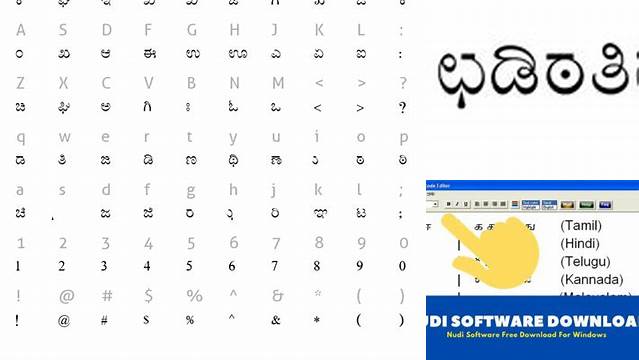
Kannada Fonts: Free Download For Windows 7
Hey guys! Are you looking to jazz up your Windows 7 with some cool Kannada fonts? You've come to the right place! In this article, we'll dive deep into the world of Kannada fonts, where to download them for free, and how to get them working smoothly on your Windows 7 system. We'll cover everything from the basics to some nifty tips and tricks. So, buckle up and let’s get started!
1. Understanding the Importance of Kannada Fonts
Let's kick things off by understanding why Kannada fonts are so important. For those of you who use Kannada in your daily communication, having the right fonts is crucial. Imagine trying to read a beautifully written Kannada document but all you see are gibberish characters – frustrating, right? That’s why having the correct fonts installed is essential for a smooth and enjoyable reading and writing experience. Fonts aren't just about aesthetics; they're about ensuring clarity and accessibility. Proper Kannada fonts make your documents, websites, and presentations look professional and readable. They help you connect with your audience effectively and ensure your message is conveyed accurately. So, whether you're a student, a professional, or just someone who loves the language, having a good collection of Kannada fonts is a must.
2. Why Choose Kannada Nudi Fonts?
So, why Kannada Nudi fonts specifically? Well, Nudi is a widely used and respected font encoding standard for the Kannada script. It's known for its clear, legible characters and its compatibility across different platforms and applications. When you choose Nudi fonts, you're opting for a standard that is well-supported and recognized within the Kannada-speaking community. This means you're less likely to run into compatibility issues or display problems when sharing documents or viewing content online. Nudi fonts are designed to render the complex characters of the Kannada script accurately and beautifully, making them an excellent choice for everything from formal documents to creative projects. Plus, many free and high-quality Nudi fonts are available, making it easy to find the perfect one for your needs.
- Locate the Font Files: You'll find files with extensions like .ttf or .otf.
- Install the Fonts: Right-click on each font file and select "Install."
- Alternative Installation (Optional): You can also copy the font files and paste them into the Fonts folder (C:\Windows\Fonts).
- Restart Applications (if needed): If you don't see the fonts in your applications, restart them. Sometimes, a computer restart might be necessary.
That's it! You've successfully installed Kannada fonts on your Windows 7 system.
7. Troubleshooting Font Installation Issues
Sometimes, even with the best instructions, things can go a little wonky. If you're having trouble installing Kannada fonts, don't worry – we've got you covered. One common issue is that the font doesn't appear in your application's font list after installation. This usually happens because the application hasn't refreshed its font list. Try restarting the application first. If that doesn't work, a full computer restart might be necessary. Another issue could be corrupted font files. If you suspect this, try downloading the font again from a different source. Also, ensure that the fonts are compatible with Windows 7. If you're still facing problems, check your system's language settings to make sure Kannada is enabled. These simple steps can often resolve most font installation issues.
8. Common Problems and Solutions for Kannada Fonts on Windows 7
Let's dive into some common issues folks encounter with Kannada fonts on Windows 7 and how to fix them. One frequent problem is garbled or incorrect character display. This can happen if you're using an application that doesn't fully support the Nudi encoding standard. To resolve this, try using a different application or updating the one you're using to the latest version. Another issue is that some fonts might not render properly in certain applications. This can be due to font compatibility issues. Try using a different Kannada font or contacting the application's support team for assistance. Sometimes, the issue is simply that the wrong input method is selected. Make sure you have the Kannada input method enabled in your system settings. By troubleshooting these common problems, you can ensure a smooth and enjoyable experience with Kannada fonts on your Windows 7 computer.
9. Verifying Font Installation
So, you've installed your Kannada fonts, but how do you make sure they're actually working? A simple way to verify the installation is to open a text editor like Notepad or Microsoft Word and check the font list. You should see the newly installed Kannada fonts listed there. If you see them, that's a great sign! Try typing some Kannada text to see if the characters render correctly. If the characters look clear and legible, your font installation was successful. Another method is to open an application that uses fonts extensively, like Adobe Photoshop or GIMP, and check the font list there. If the fonts appear in multiple applications, you can be confident that they're properly installed and ready to use.
10. Using Kannada Fonts in Microsoft Word
Using Kannada fonts in Microsoft Word is super straightforward. Once you've installed the fonts, simply open Word and start typing. To switch to Kannada, you'll need to enable the Kannada input method in your system settings. In Windows 7, you can do this by going to Control Panel > Region and Language > Keyboards and Languages > Change keyboards. Add the Kannada language and input method. Now, in Word, you can select the Kannada input method from the language bar and choose your desired Kannada font from the font dropdown menu. Start typing, and your text will appear in beautiful Kannada script. You can adjust the font size, style, and other formatting options just like you would with any other font. This makes it easy to create documents, reports, and other content in Kannada.
11. Using Kannada Fonts in Other Applications
The good news is that Kannada fonts work pretty much the same way in most applications. Whether you're using Adobe Photoshop, GIMP, or a web browser, the process is similar. First, make sure you've installed the Kannada fonts on your system. Then, in the application, select the text tool or the appropriate option for changing fonts. You should see the Kannada fonts in the font list. Choose the font you want to use, and make sure your input method is set to Kannada. Now, you can type away in Kannada! Keep in mind that some applications might have specific settings or requirements for handling different languages and scripts, so it's always a good idea to consult the application's documentation or help resources if you encounter any issues.
12. Creating Documents in Kannada with Nudi Fonts
Creating documents in Kannada using Nudi fonts is a breeze once you've got everything set up. Nudi fonts are particularly well-suited for this task because they are widely recognized and compatible with many applications. Start by opening your favorite word processor, like Microsoft Word or LibreOffice Writer. Select your Nudi font from the font menu and ensure your input method is set to Kannada. Now, you can type your document in Kannada, taking advantage of Nudi's clear and legible characters. Remember to save your document in a format that supports Unicode, such as .docx or .odt, to ensure that the Kannada text is displayed correctly on other systems. Creating documents in Kannada with Nudi fonts allows you to communicate effectively and professionally in the language you love.
13. Designing Graphics with Kannada Fonts
Want to add some Kannada flair to your graphic designs? Using Kannada fonts in graphic design software like Adobe Photoshop or GIMP can give your creations a unique and authentic touch. Start by opening your design software and creating a new project. Select the text tool and choose your desired Kannada font from the font list. Make sure your input method is set to Kannada so you can type in the language. Experiment with different font styles, sizes, and colors to achieve the look you want. Kannada fonts can be used for everything from logos and posters to social media graphics and website banners. By incorporating Kannada script into your designs, you can create visually appealing and culturally relevant content.
14. Using Kannada Fonts on Websites
If you're building a website with Kannada content, using the right Kannada fonts is crucial for readability and visual appeal. Web fonts work a bit differently than desktop fonts, so you'll need to use a technique called web font embedding. This involves linking to the font files from your website's CSS. Google Fonts is a great resource for free and open-source web fonts, and they offer several Kannada fonts that you can easily embed on your site. Simply choose the font you want, copy the provided code snippets, and paste them into your website's HTML and CSS files. This will ensure that visitors to your site see the Kannada text in the correct font, regardless of whether they have the font installed on their own computers. Using Kannada fonts on your website helps create a more engaging and user-friendly experience for your Kannada-speaking audience.
15. Kannada Fonts for Social Media
Want to spice up your social media posts with some Kannada text? Using Kannada fonts on platforms like Facebook, Twitter, and Instagram can help you connect with your audience in a more personal and engaging way. The process is similar to using fonts in other applications: make sure you have the Kannada fonts installed on your device, and then select the font when creating your post. However, social media platforms often have their own font rendering engines, so the appearance of the text might vary slightly depending on the platform and device. Experiment with different fonts and styles to find what looks best for your content. Adding Kannada text to your social media posts can help you reach a wider audience and express yourself more authentically.
16. Exploring Different Styles of Kannada Fonts
The world of Kannada fonts is vast and varied, with a font style to suit every taste and project. From classic and traditional styles to modern and contemporary designs, there's a Kannada font out there for you. Some fonts are bold and assertive, perfect for headlines and titles, while others are delicate and elegant, ideal for body text and captions. Experiment with different font styles to see how they impact the overall look and feel of your content. Consider the context in which you'll be using the font. For formal documents, a clean and legible font is essential. For creative projects, you might want to choose a more expressive and decorative font. Exploring different styles of Kannada fonts can help you find the perfect typeface to communicate your message effectively.
17. Popular Kannada Fonts to Download
Let's talk about some popular Kannada fonts that you might want to download and try out. One of the most well-known is Tunga, a classic and widely used font that is highly legible and versatile. Another popular choice is Nudi, which, as we discussed earlier, is a standard encoding for Kannada script. Several variations of Nudi fonts are available, each with its unique characteristics. Other notable Kannada fonts include Kedage, Mallige, and Latha. Each of these fonts has its own distinct personality and is suitable for different types of projects. Explore these popular options to get a sense of the range of Kannada fonts available and find the ones that resonate with you.
18. Understanding Kannada Script and Font Encoding
To truly appreciate and use Kannada fonts effectively, it's helpful to understand the basics of the Kannada script and font encoding. The Kannada script is an abugida, meaning that each consonant character has an inherent vowel sound, which can be modified by adding diacritics. This complexity means that Kannada fonts need to be carefully designed to render the characters accurately. Font encoding refers to the way characters are mapped to specific code points in a digital font file. Nudi is a popular encoding standard for Kannada, but other encodings exist. Understanding these concepts can help you troubleshoot font-related issues and ensure that your Kannada text is displayed correctly across different platforms and applications.
19. The Future of Kannada Fonts
The world of Kannada fonts is constantly evolving, with new fonts and technologies emerging all the time. As digital communication and content creation continue to grow, the demand for high-quality Kannada fonts will only increase. We can expect to see more innovative and expressive Kannada fonts in the future, as well as improvements in font rendering and compatibility. Web font technology is making it easier than ever to use Kannada fonts on websites, and this trend is likely to continue. The future of Kannada fonts is bright, with exciting possibilities for enhancing the visual representation of the language in the digital realm.
20. Tips for Choosing the Right Kannada Font
Choosing the right Kannada font for your project can make a big difference in its overall impact. Here are some tips to help you make the best choice. First, consider the purpose of your text. Is it for a formal document, a creative design, or a website? The context will help you narrow down your options. Legibility is crucial, especially for body text. Choose a font that is easy to read at the intended size. Think about the overall tone and style you want to convey. A bold font might be suitable for a headline, while a more delicate font might be better for a caption. Don't be afraid to experiment with different fonts and see what works best for you. Ultimately, the right Kannada font is the one that best communicates your message and enhances your design.
21. Maintaining Your Kannada Font Collection
Once you've built up a collection of Kannada fonts, it's essential to maintain them properly. This will ensure that your fonts are always available when you need them and that they continue to work correctly. Keep your font files organized in a dedicated folder on your computer. This will make it easier to find and manage them. Regularly back up your font collection to an external drive or cloud storage service. This will protect you from data loss in case of a computer malfunction. If you encounter any font-related issues, try restarting your computer or reinstalling the font. By taking these simple steps, you can keep your Kannada font collection in tip-top shape.
22. Creating Your Own Kannada Fonts
Feeling creative? Why not try designing your own Kannada fonts? Font design can be a challenging but rewarding endeavor. It involves a deep understanding of typography, the Kannada script, and the technical aspects of font creation. Several software programs are available for font design, ranging from free and open-source options to professional-grade tools. Start by sketching out your font ideas on paper, then use the software to digitize your designs. Pay close attention to the spacing and kerning of the characters to ensure readability. Creating your own Kannada fonts allows you to express your unique style and contribute to the rich tradition of Kannada typography.
23. Kannada Font Resources Online
The internet is a treasure trove of Kannada font resources. Whether you're looking for fonts to download, tutorials on font installation, or inspiration for font design, you'll find a wealth of information online. Font repositories and archives offer a wide selection of free and commercial Kannada fonts. Online forums and communities dedicated to Kannada language and culture are great places to ask questions and share your experiences. Websites and blogs focused on typography and graphic design often feature articles and tutorials on using Kannada fonts effectively. Take advantage of these online resources to expand your knowledge and skills in the world of Kannada typography.
24. The History of Kannada Script and Fonts
To truly appreciate Kannada fonts, it's fascinating to delve into the history of the Kannada script itself. The Kannada script evolved from the Brahmi script, an ancient writing system used in India. Over centuries, the script gradually developed its unique characteristics, becoming the beautiful and intricate script we know today. Early Kannada inscriptions date back to the 5th century CE. The advent of printing in the 19th century led to the development of Kannada typefaces. Today, digital Kannada fonts allow us to preserve and celebrate this rich linguistic heritage. Understanding the history of the Kannada script and fonts adds depth and appreciation to their use.
25. Kannada Fonts and Unicode
Unicode plays a crucial role in the digital representation of Kannada fonts. Unicode is a universal character encoding standard that assigns a unique code point to every character in every language. This ensures that text can be displayed correctly across different platforms and applications, regardless of the user's system settings. Kannada characters are included in the Unicode standard, which means that well-designed Kannada fonts can be used on any Unicode-compliant system. Using Unicode fonts is essential for ensuring that your Kannada text is displayed accurately and consistently. When saving documents or web pages with Kannada text, be sure to use a Unicode encoding, such as UTF-8.
26. Kannada Fonts for Print vs. Screen
When choosing Kannada fonts, it's important to consider whether they will be used for print or screen. Fonts designed for print often have subtle details and refinements that might not be visible on a screen. Fonts designed for screen use, on the other hand, are often optimized for pixel rendering and readability on digital displays. Some fonts are specifically designed for both print and screen use, offering versatility and consistency across different media. If you're designing a project that will be used both in print and online, consider choosing a font that is well-suited for both. Otherwise, select a font that is optimized for the specific medium in which it will be used.
27. Kannada Fonts and Accessibility
Accessibility is an important consideration when working with Kannada fonts. Choosing fonts that are easy to read and clearly rendered can make your content more accessible to a wider audience, including people with visual impairments. Avoid using overly decorative or stylized fonts that might be difficult to decipher. Ensure that the font size is large enough and that there is sufficient contrast between the text and background. Consider using a sans-serif font for body text, as these fonts are often easier to read on screen. By prioritizing accessibility when choosing Kannada fonts, you can make your content more inclusive and user-friendly.
28. Licensing of Kannada Fonts
When downloading and using Kannada fonts, it's essential to understand the licensing terms. Fonts can be licensed under various agreements, ranging from free and open-source licenses to commercial licenses. Free fonts can often be used for both personal and commercial projects, but it's always a good idea to check the specific license terms. Commercial fonts typically require a fee for use, and the license might specify limitations on how the font can be used. Make sure you understand the licensing terms before using a font in your project, and respect the rights of the font designer. Using fonts legally and ethically ensures that the font community can continue to thrive.
29. The Importance of Kerning and Spacing in Kannada Fonts
Kerning and spacing are crucial aspects of Kannada fonts that significantly impact readability and visual appeal. Kerning refers to the adjustment of the space between individual letter pairs to create a more balanced and harmonious appearance. Proper spacing ensures that there is sufficient white space between letters and words, making the text easier to read. Well-kerned and spaced Kannada fonts provide a more professional and polished look. When choosing a font, pay attention to these details. If you're designing your own fonts, kerning and spacing are essential skills to master.
30. Staying Updated on New Kannada Fonts and Trends
The world of Kannada fonts is dynamic, with new fonts and design trends emerging regularly. To stay current, it's helpful to follow font designers, type foundries, and typography blogs. Join online communities and forums dedicated to Kannada language and design to connect with other enthusiasts and professionals. Attend workshops and conferences on typography and font design to learn from experts and see the latest trends. By staying updated on new Kannada fonts and trends, you can keep your designs fresh and relevant.